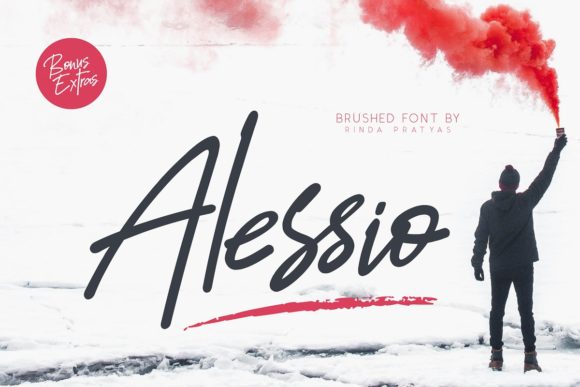
Adorn your designs with Alessio, a script font that exudes confidence and boldness. Crafted by the skilled hand of Rinda Pratyas, this brushed script font captivates with its strong, masculine characters. Brace yourself for a typographic journey like no other, where power and elegance intertwine.
With Alessio, you hold the key to unlocking boundless creativity. Its bold strokes command attention, leaving an indelible mark on your designs. Whether you're crafting logos, branding materials, or eye-catching headlines, Alessio stands ready to elevate your work to new heights.
Picture your words dancing across the screen, imbued with the raw energy of Alessio. Its characters possess a dynamic rhythm, flowing effortlessly from one to the next. Each letterform, meticulously crafted, carries the weight of authority and determination.
But Alessio is more than just a font; it's an experience. Its bold lines and confident curves ignite passion and ignite imagination. Unleash your inner artist and let Alessio guide you to typographic greatness.
So, dive into the world of Alessio and discover a font that resonates with strength and individuality. Its unwavering presence will transform your designs, leaving a lasting impression on all who encounter it. Embrace the power of Alessio and let your creativity soar.